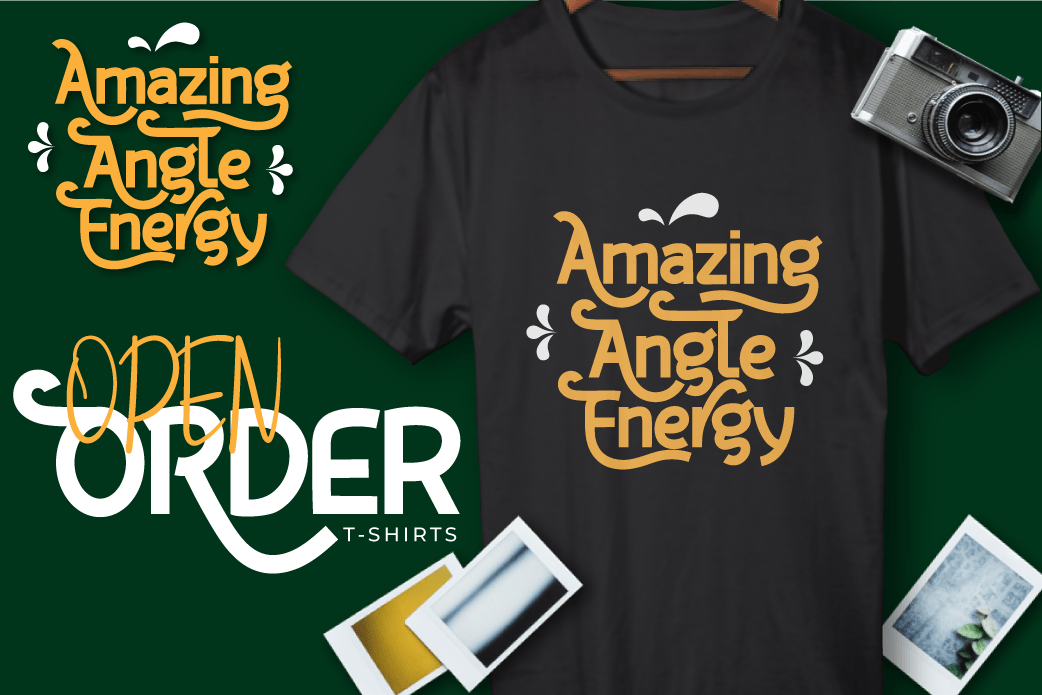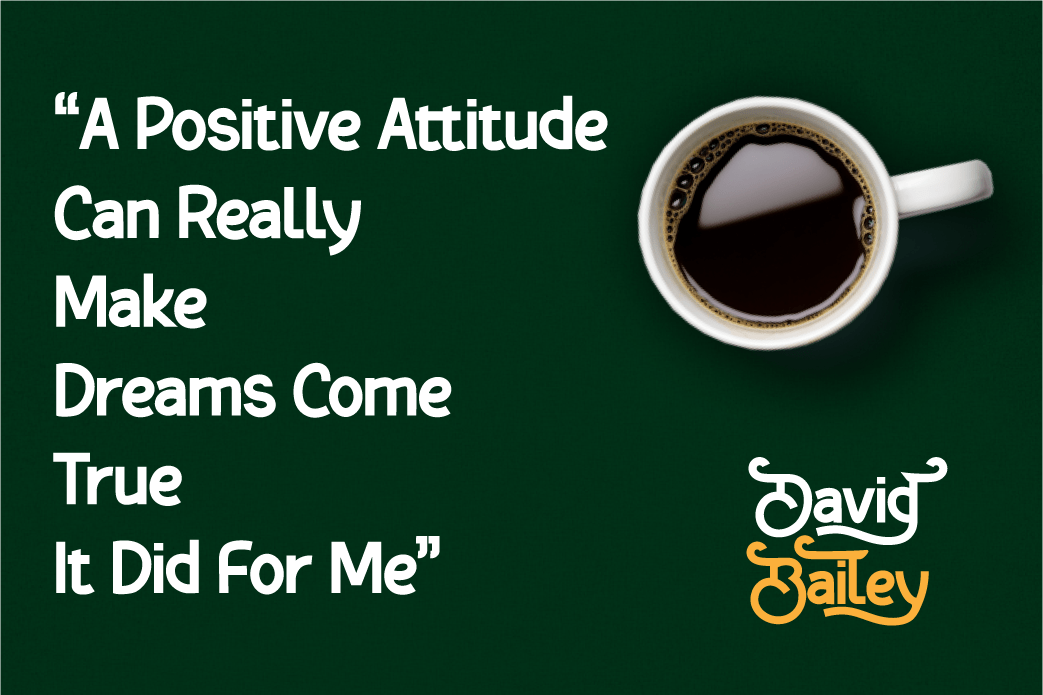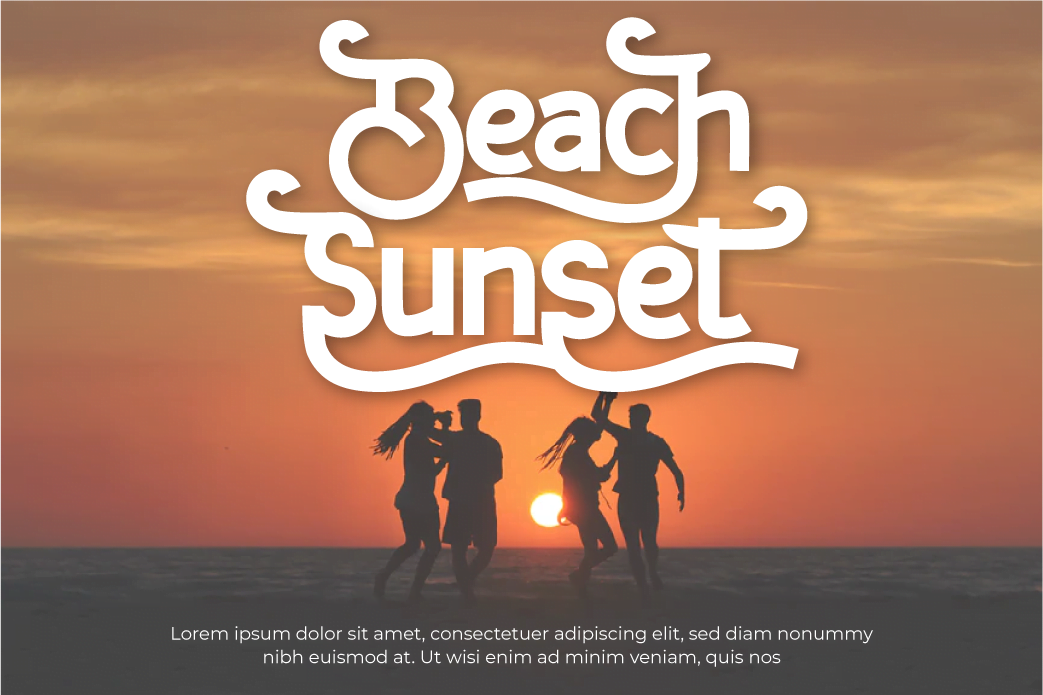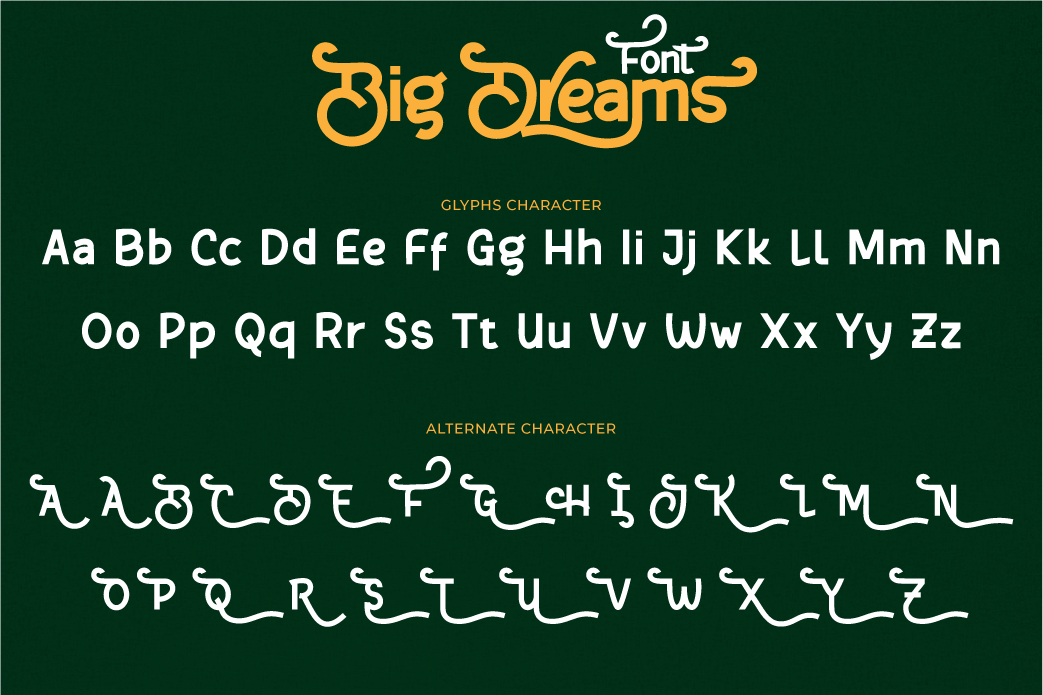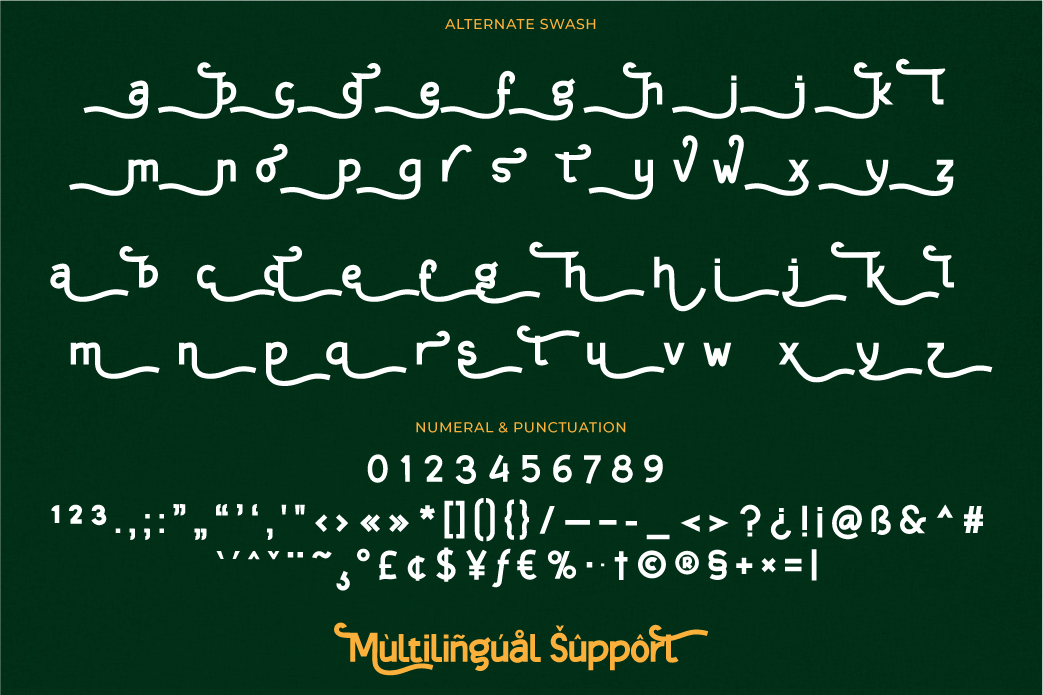
- Big Dreams
Introducing the Big Dreams font.
As the name implies, this font will give an extraordinary impression and an experience that will never be forgotten, if you use this font in your design. We designed this font with thorough attention to each letter so that it has the right portion if it is arranged in a word or title and if it is made into a sentence it will be easy to remember and pleasing to the eye.
Not limited to that, the bold calligraphy font is designed to keep paying attention to the beauty of each letter, there are alternate options for the letters which are certainly easy for you to access, so you can automatically customize the letters you want to enhance the visual appearance of your design project.
This charming font also offers the beauty of abstract typography harmony for a wide variety of design projects, including digital natural handwriting for designs, quote designs, for social media business designs, advertisements, trademarks, food and beverage promotion banners, text, posters, a signature, and all designs require handwriting or whatever design you want.